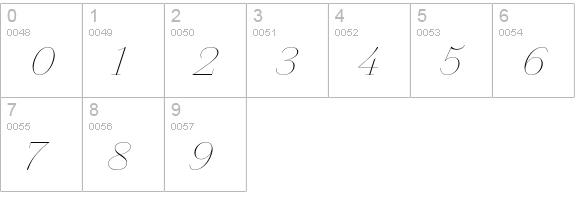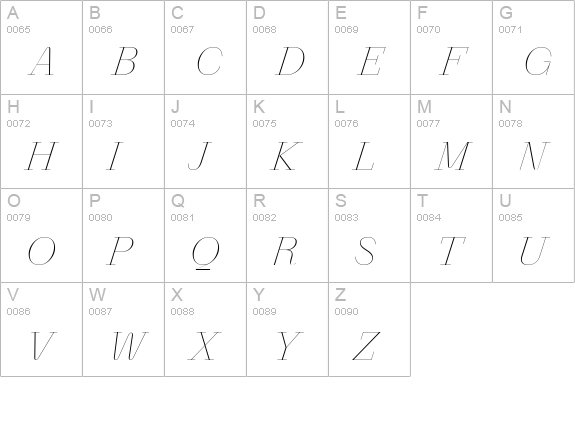
NewParis KingSize Air Italic Font Details
NewParis KingSize Air Italic is a distinctive, italic variant in the NewParis typeface family \xE2\x80\x94 well suited to design and typography projects.
Introducing NewParis KingSize Air Italic, a sleek and modern font designed to make a bold statement in any design project. This elegant typeface combines sophistication with a touch of creativity, making it perfect for branding, advertising, and editorial purposes. The italic style adds a sense of dynamism and movement to your text, capturing the attention of your audience effortlessly. What makes NewParis KingSize Air Italic even more appealing is the fact that it is available for free download at FontsMarket.com. Yes, you read that right - this premium font can be yours at no cost, allowing you to elevate your designs without breaking the bank. So why wait? Enhance your projects with the timeless elegance of NewParis KingSize Air Italic today!